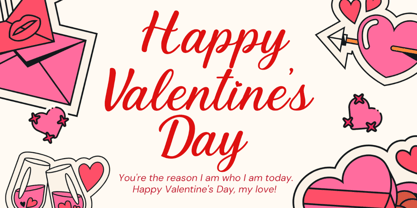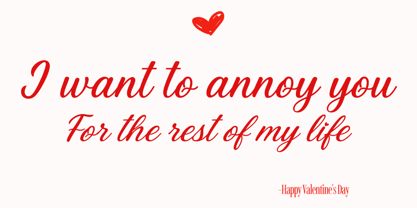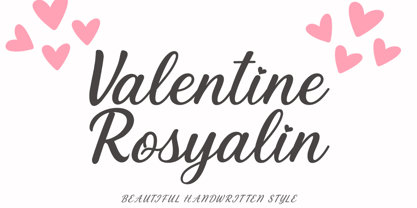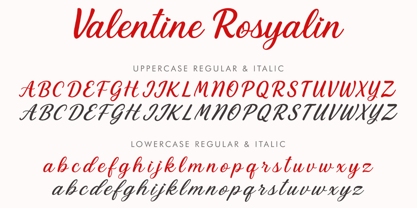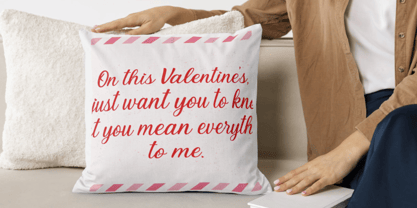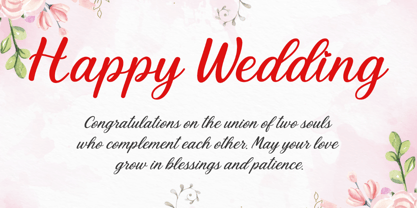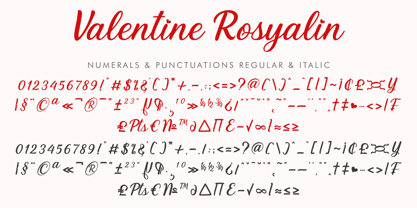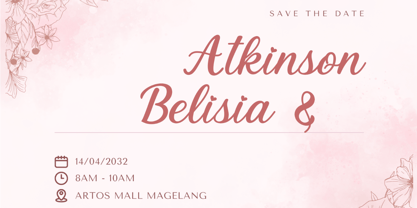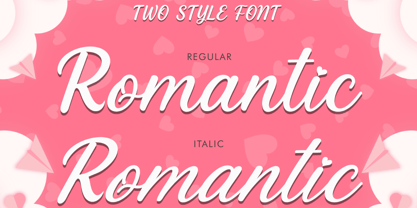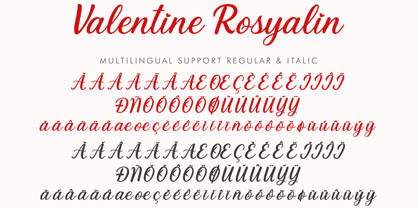
Valentine Rosyalin
by Yoga Letter
The Valentine Rosyalin Font Family was designed by Isroni Yoga Prasetya and published by Yoga Letter. Valentine Rosyalin contains 2 styles and family package options. More about this family
"Valentine Rosyalin" is a beautiful and professional handwritten font. Available in regular and italic, it features uppercase and lowercase letters, numbers, punctuation, and multilingual support. It's perfect for Valentine's Day, greetings, invitations, weddings, photography, spring, Easter, business branding, social media, advertising, YouTube, and more.
Designers: Isroni Yoga Prasetya
Foundry: Yoga Letter